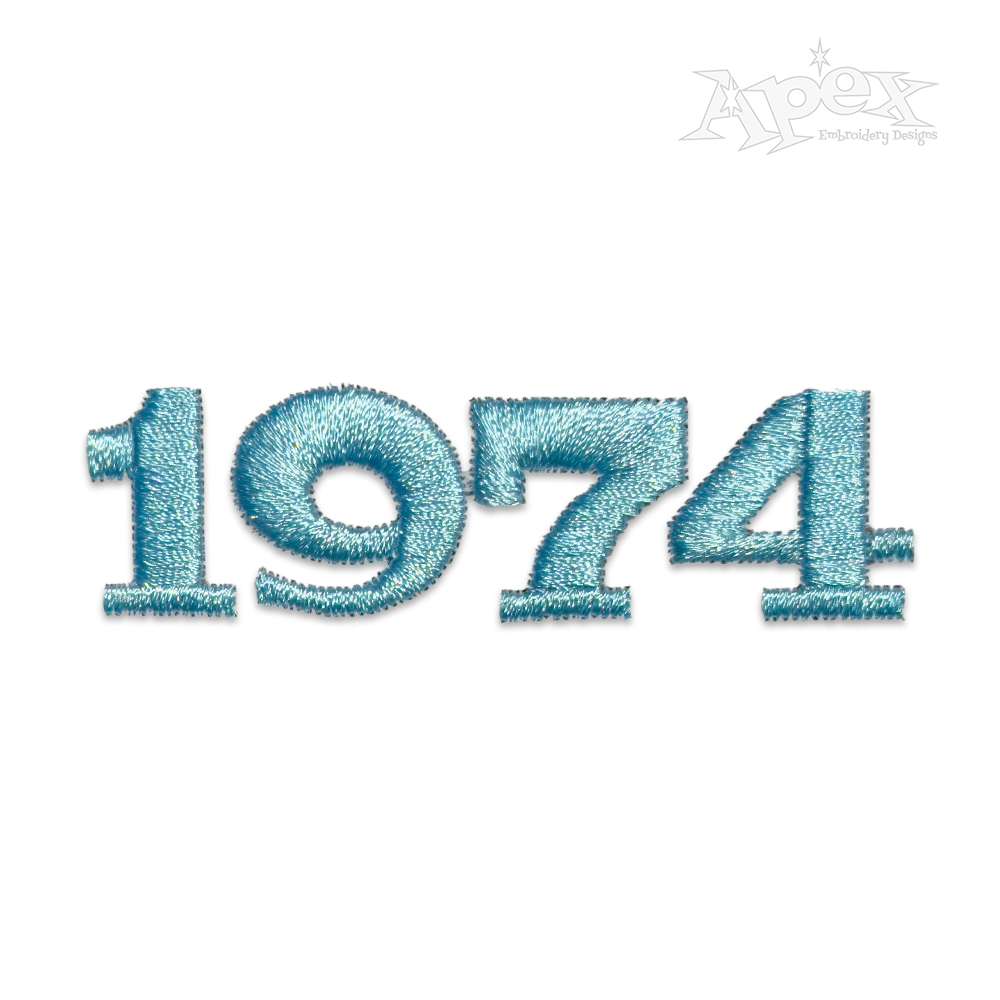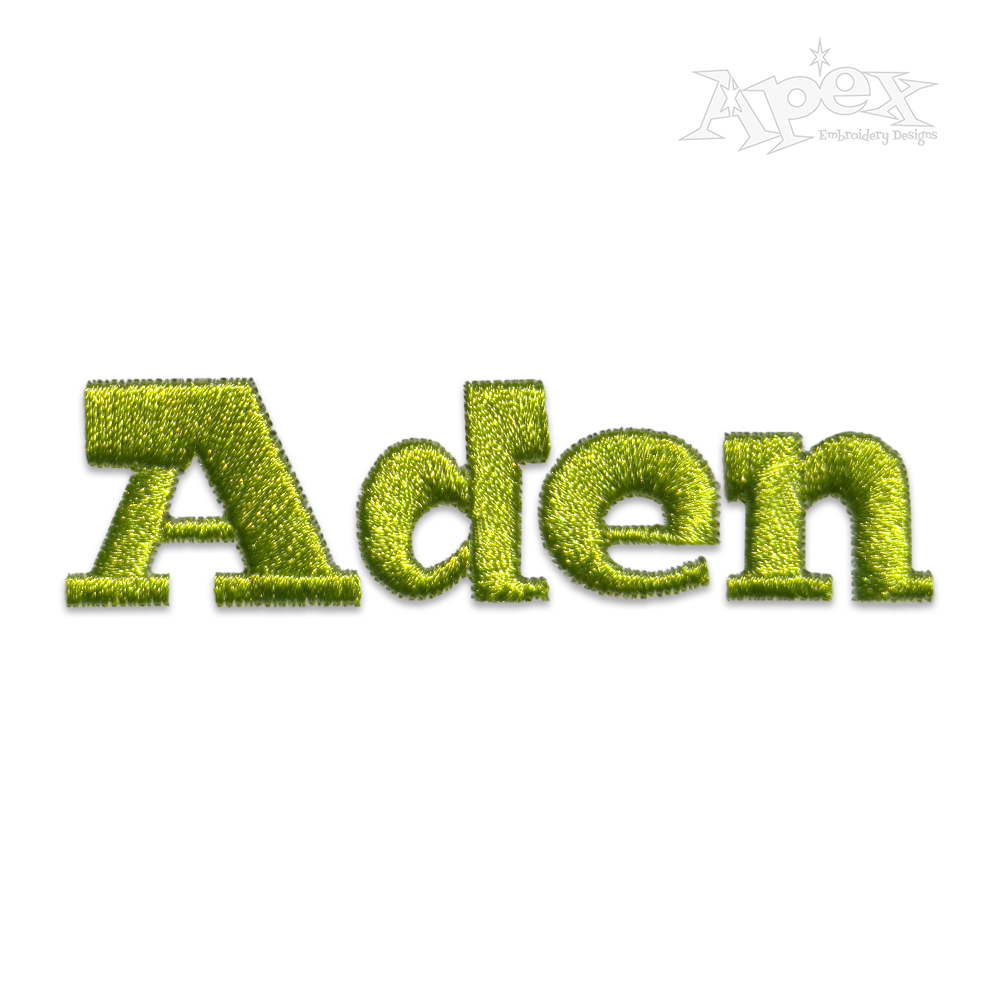
Cartoon Embroidery Font
There is an infectious joy woven into the buoyant curves and retro animated charm of classic cartoon lettering. When drafting the Cartoon Embroidery Font at Apex, our vision was to translate the carefree magic of mid-century hand-drawn animations into flawless, tactile needlework. Every rounded terminal and energetic slant captures that vibrant storybook humor, designed to turn everyday fabrics into cherished, smiling keepsakes. Whether creating bespoke accents for young dreamers or adding a witty, lighthearted monogram to personal accessories, this alphabet breathes warmth and personality into every single stitch.
Digitized with exacting precision to preserve clarity at compact scales, this collection delivers pristine stitch-outs across three versatile micro-to-small sizes:
- 0.25 inch (approx. 6.4 mm) – Ideal for subtle tags, compact cuff lettering, and intricate miniature labels.
- 0.50 inch (approx. 12.7 mm) – Perfectly scaled for pocket crests, baby apparel, and delicate monograms.
- 0.75 inch (approx. 19 mm) – A punchy, readable size designed for prominent name drops and spirited personal gifts.
Project Ideas for Cartoon Embroidery Font
The compact sizing and bubbly aesthetic of this font unlock endless possibilities for bespoke gifting and heirloom crafting:
- Custom Playwear & Rompers: Spell out names across the front yoke of children’s overalls, vintage denim jackets, or cozy fleece pullovers.
- Bespoke School Gear: Personalize durable canvas backpacks, zippered pencil cases, and lunch satchels so your child’s gear always stands out in the crowd.
- Nursery Keepsakes: Stitch birth announcement dates and initials onto heirloom baby blankets, soft plush fabric blocks, or the ears of stuffed nursery companions.
- Sibling Sleepwear: Monogram matching holiday pajama collars or pockets with a joyful, spirited flair.
- Everyday Accessories: Add initials to knit beanies, sun-washed baseball caps, or fabric luggage tags for weekend family road trips.
Because these letterforms are calibrated for small-scale balance, placement can be both creative and wonderfully subtle:
- Above Pocket Welts: Align names or three-letter monograms directly along the upper seam of shirt pockets or infant bib overalls for classic charm.
- Sleeve & Pant Cuffs: Nestle a 0.25-inch or 0.5-inch monogram along a rolled denim hem or ribbed sleeve cuff for an understated bespoke signature.
- Peter Pan & Polo Collars: Follow the gentle arc of a collar edge, allowing the animated letters to frame the face delightfully.
- Corner Accents: Position initials diagonally in the lower corner of linen handkerchiefs, school napkins, or canvas tote pockets.
Cartoon Embroidery Font Craft & Letterform Details
Engineering animated, chunky letterforms at micro sizes (from a quarter-inch to three-quarters of an inch) presents a thrilling technical challenge. Without careful digitization, bulbous cartoon strokes can easily crowd together, creating thread buildup and distorted edges. We meticulously calibrated the satin stitch pathing with micro-sculpted travel lines and dedicated pull compensation, ensuring that hollows within loops remain crisply open while outer borders retain their plush, rounded bounce.
The stitch directions naturally fan through curves, reflecting light to create dynamic visual depth across each character. Underlays are intentionally light yet supportive, locking the fabric grain in place without stiffening the garment—allowing delicate jersey knits, soft linens, and sturdy twills alike to drape effortlessly beneath the embroidery. It is the marriage of cartoon levity and master-grade embroidery physics, ready to stitch effortlessly under your needle.